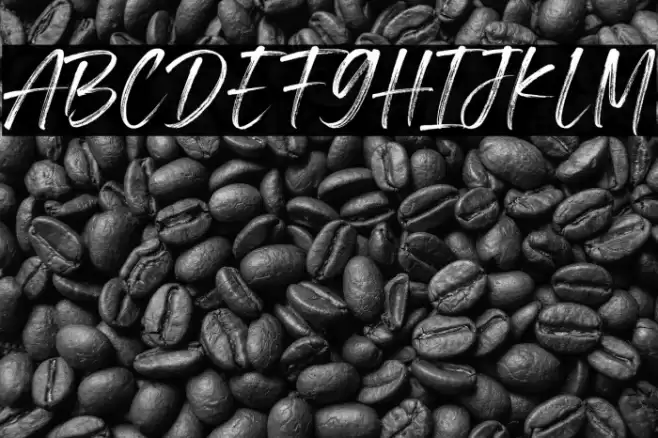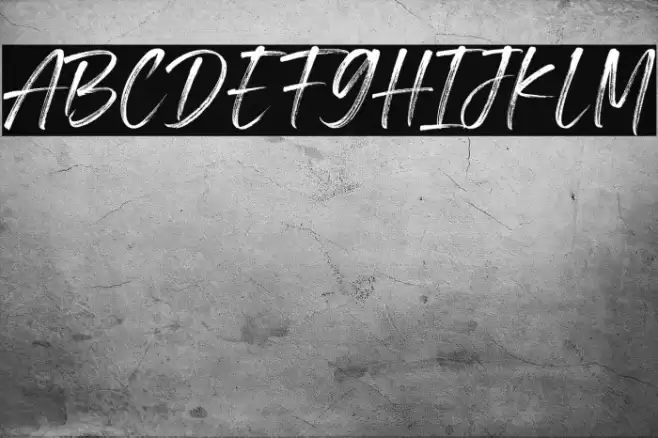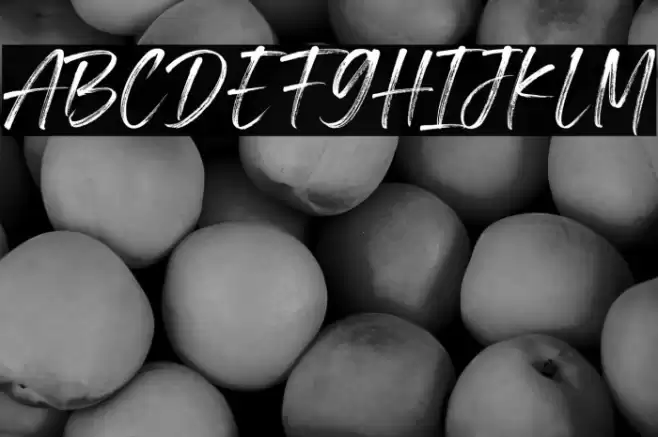
Blackhills Demo Font
Blackhills Demo Description
This font features a dynamic and expressive handwritten style, characterized by its fluid strokes and natural flow. The letters exhibit a brush-like texture, giving it an artistic and organic feel. The uppercase and lowercase letters maintain a consistent style, with a slight slant that adds to the casual elegance of the design. The font's unique character is enhanced by its varying stroke widths, which create a sense of movement and energy. This makes it ideal for projects that require a personal touch or a creative flair.
A dynamic, expressive handwritten font with brush-like texture and fluid strokes from Uncategorized fonts.
- Font: Blackhills Demo
- Proposed Projects: Ideal for branding, invitations, greeting cards, and creative projects that require a personal touch.
- Use Case: Logos, Headlines, Invitations